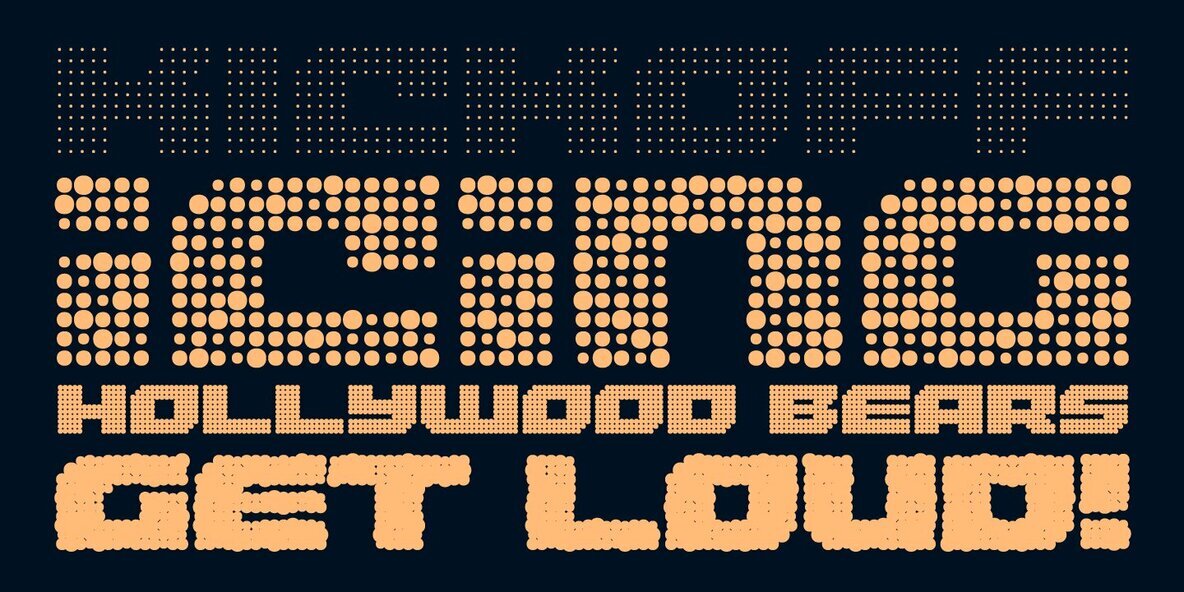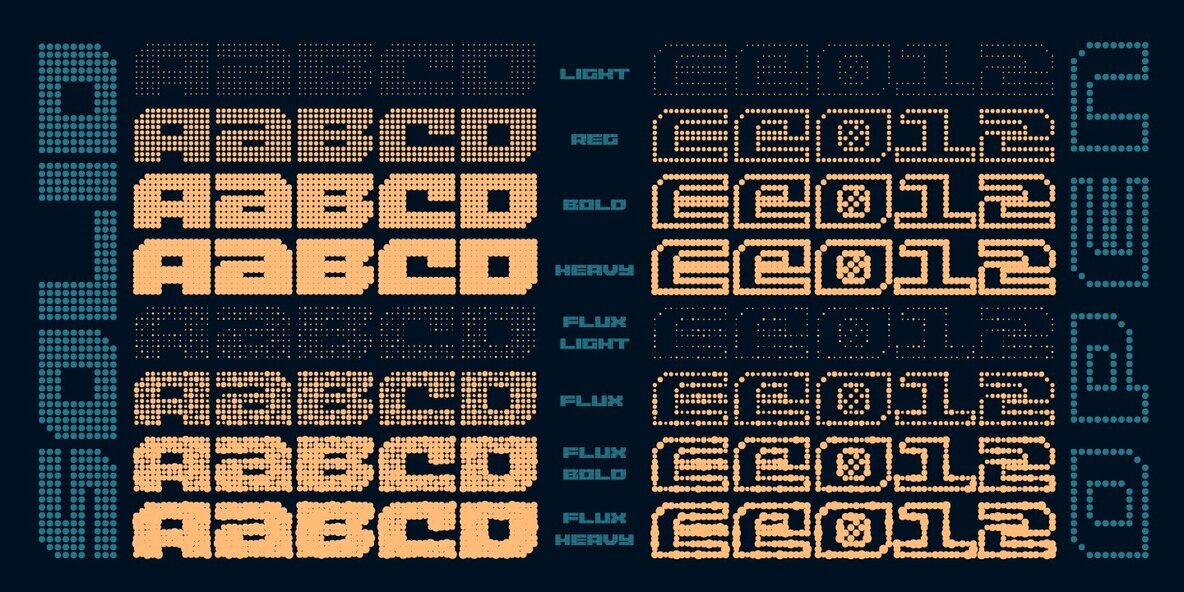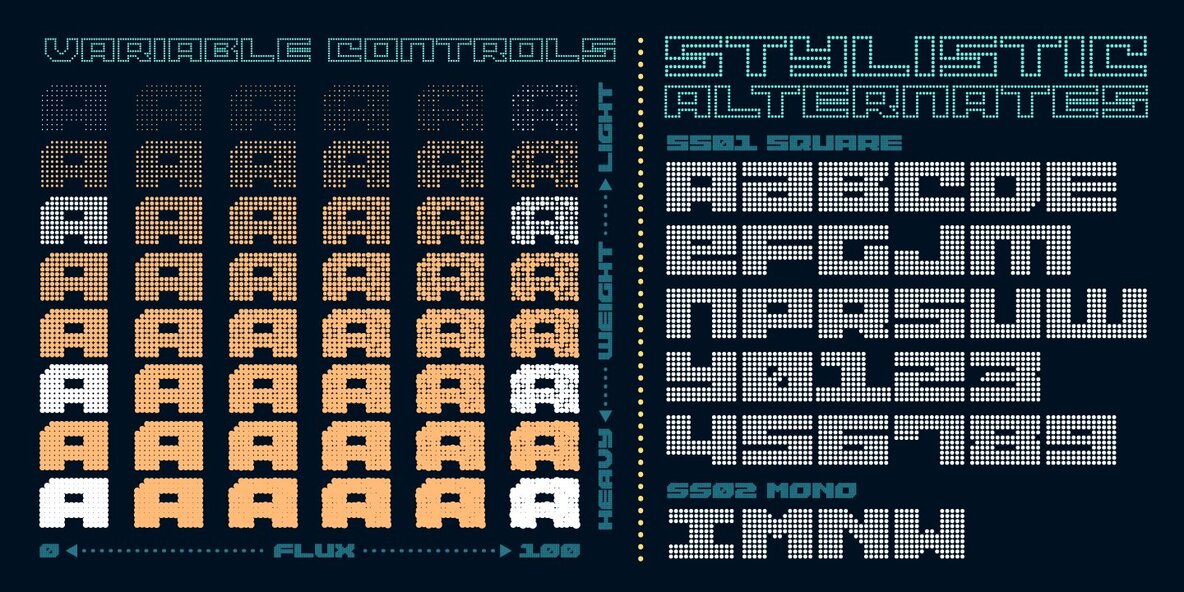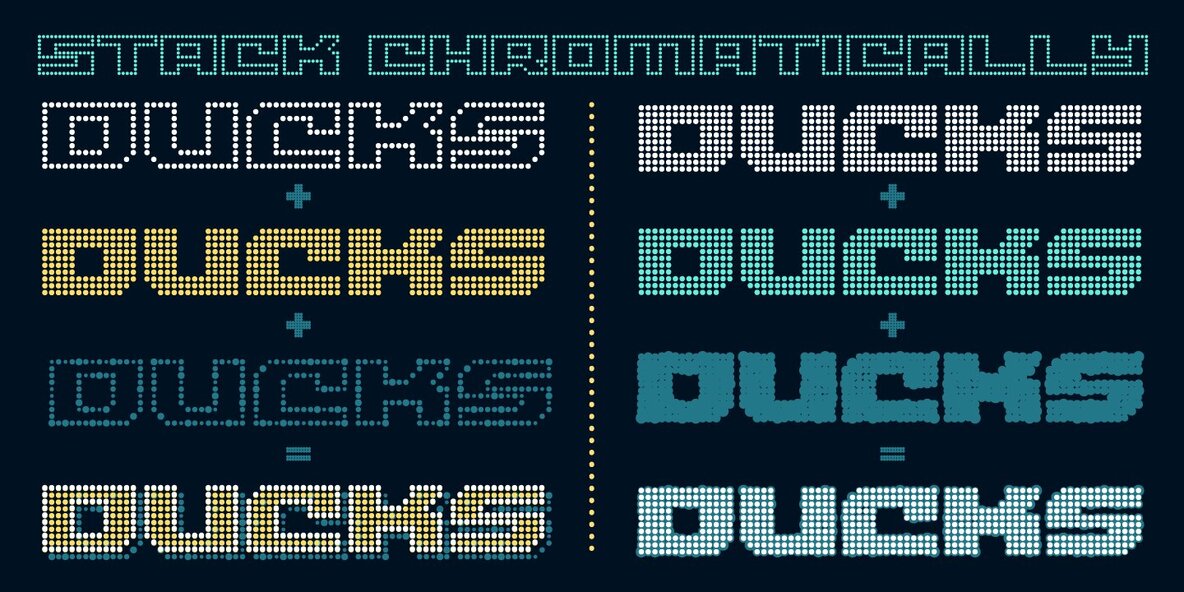
Superscore XWide Font
Inspired by 1970s & ’80s stadium displays, Superscore XWide is a display font alight with vintage vibes and modern features. Each of the seven widths includes 16 static weights and two Variable Fonts. Each weight features two sets of Stylistic Alternates (Square and Mono), support for 221 languages, and an economical three (count 'em) kerning pairs. Use the Variable controls to set the brightness and amount of "Flux", or variation, in the brightness. Animate to create glowing & sparkling effects!